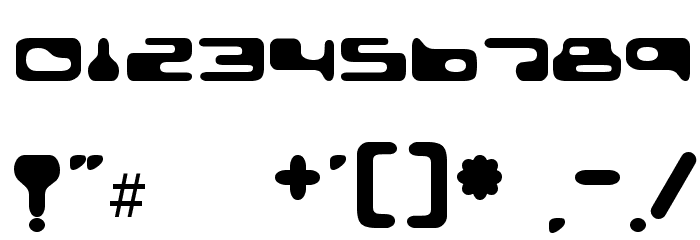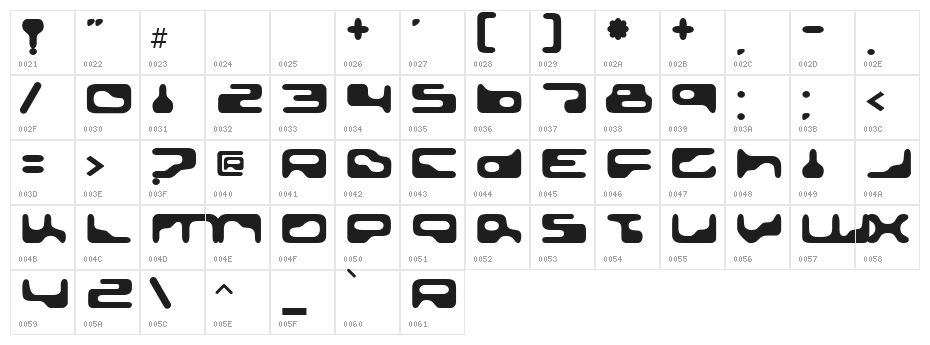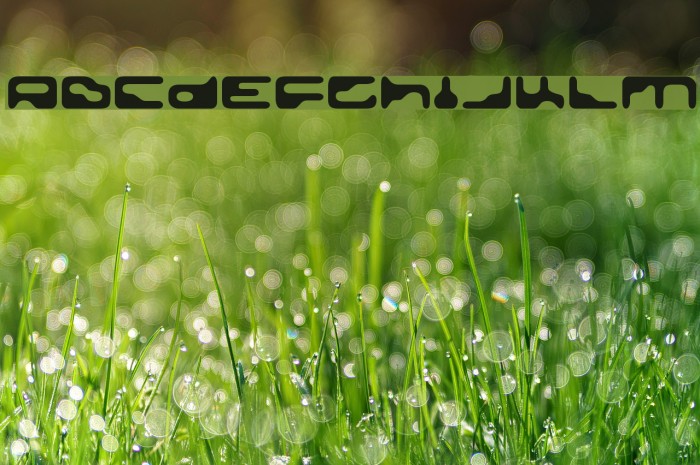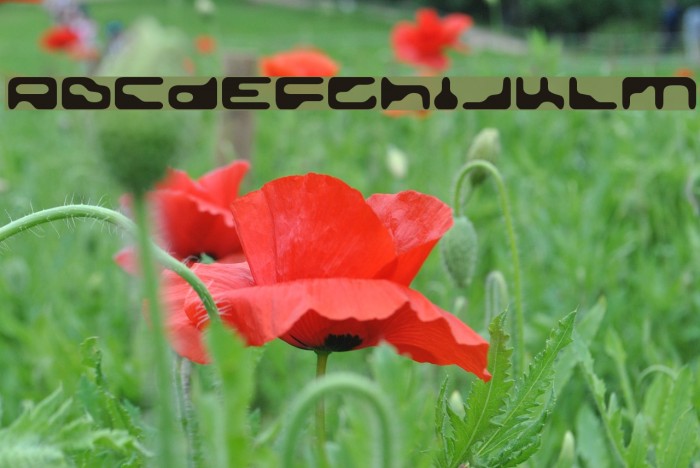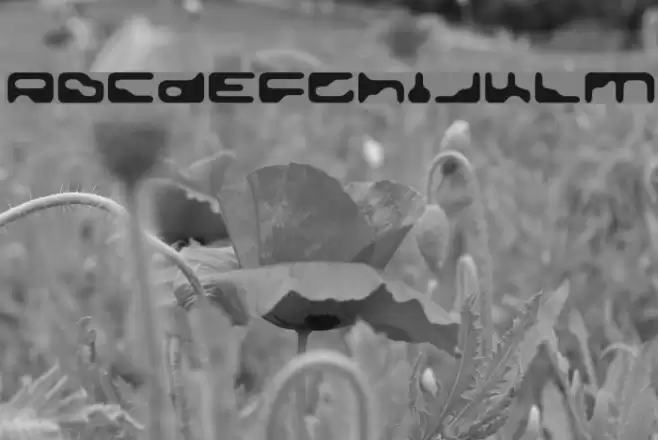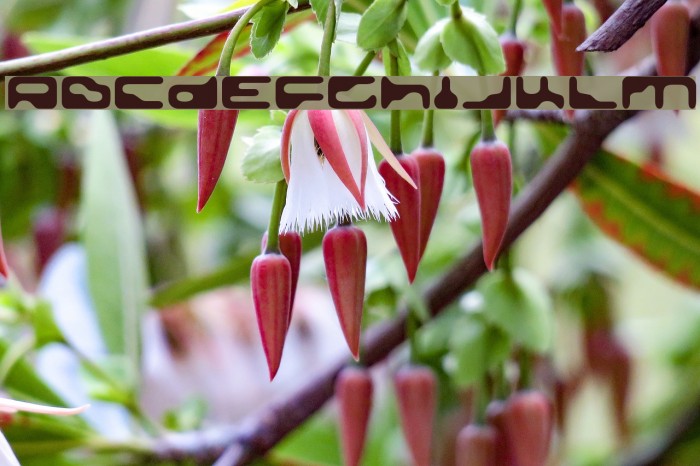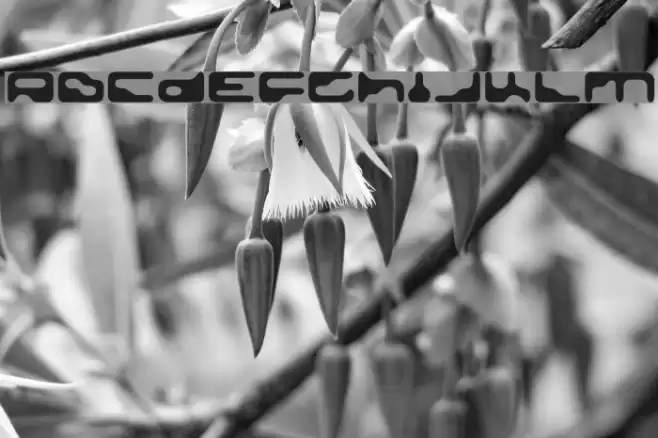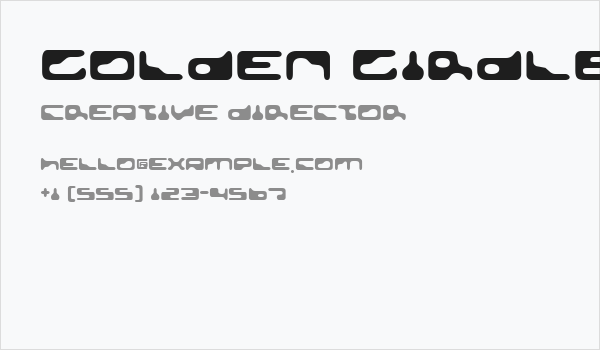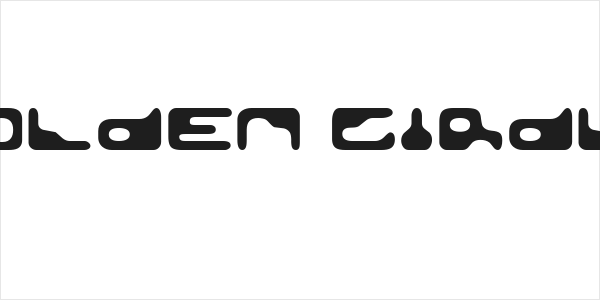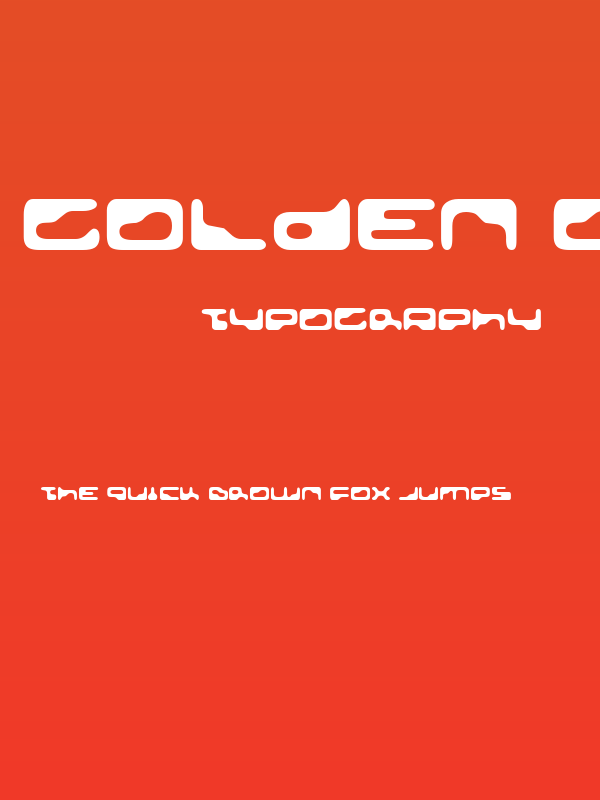
Golden Girdle Font
Golden Girdle Description
This font features a futuristic and bold design with rounded edges and a unique, flowing structure. Each character is crafted with a consistent thickness, creating a cohesive and modern appearance. The letters have a distinct geometric style, with smooth curves and minimalistic shapes that give it a sleek and contemporary look. The numbers and special characters follow the same design principles, ensuring uniformity across all elements. This font is ideal for projects that require a modern and innovative touch, such as technology branding, sci-fi themed designs, or digital interfaces.